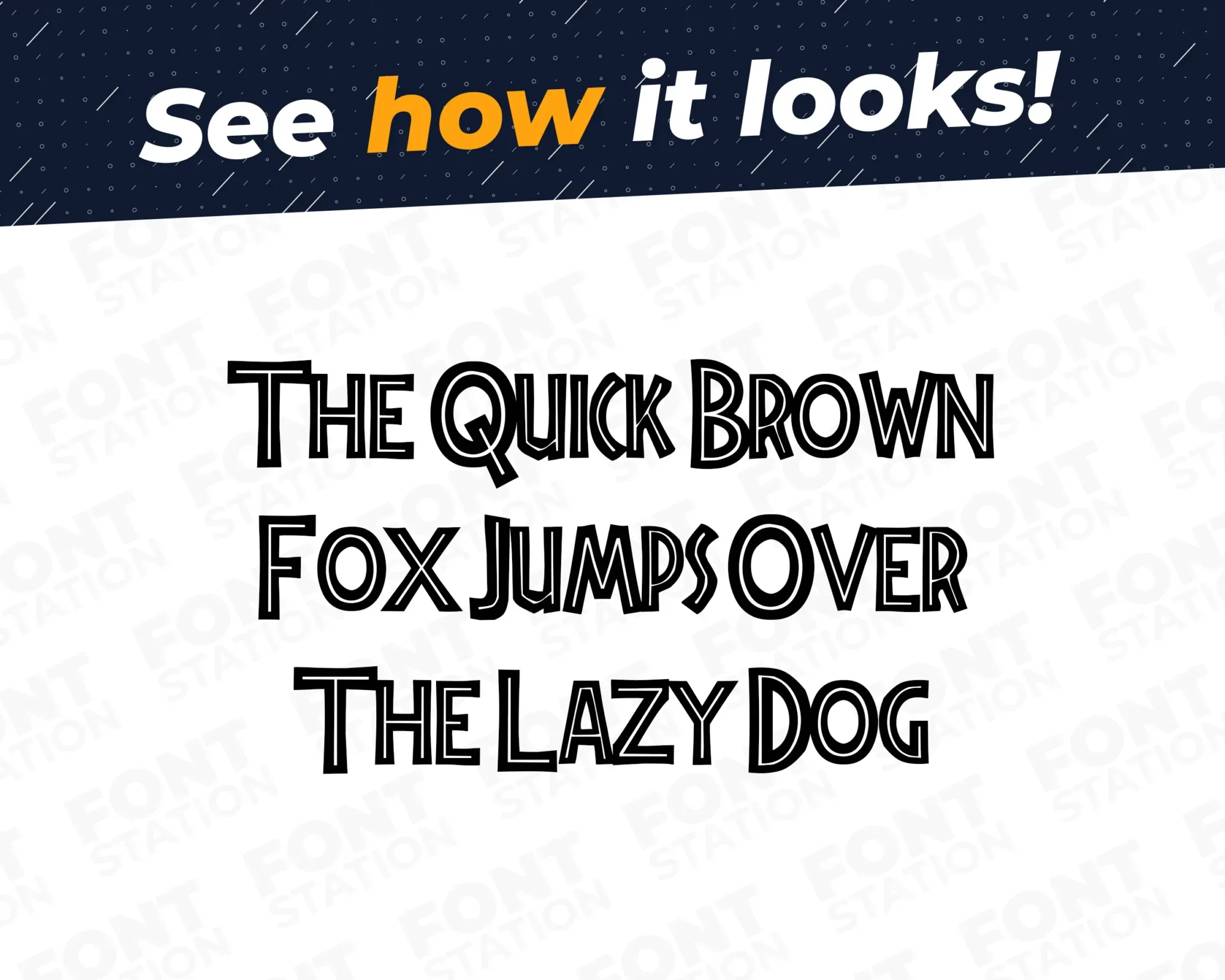
Image showing all characters available in the Jurassic Park font created by FontStation.
Our Dinorassic World typeface, inspired from Jurassic Park font
Grab your computer, tablet or other device and start creating right now with our Jurassic Park font letters! Our Dinorassic World typography is inspired from Jurassic Park movie font, making it ideal for various digital creations (logo, word…), sublimation, cake toppers, stickers, event decorations, and more.